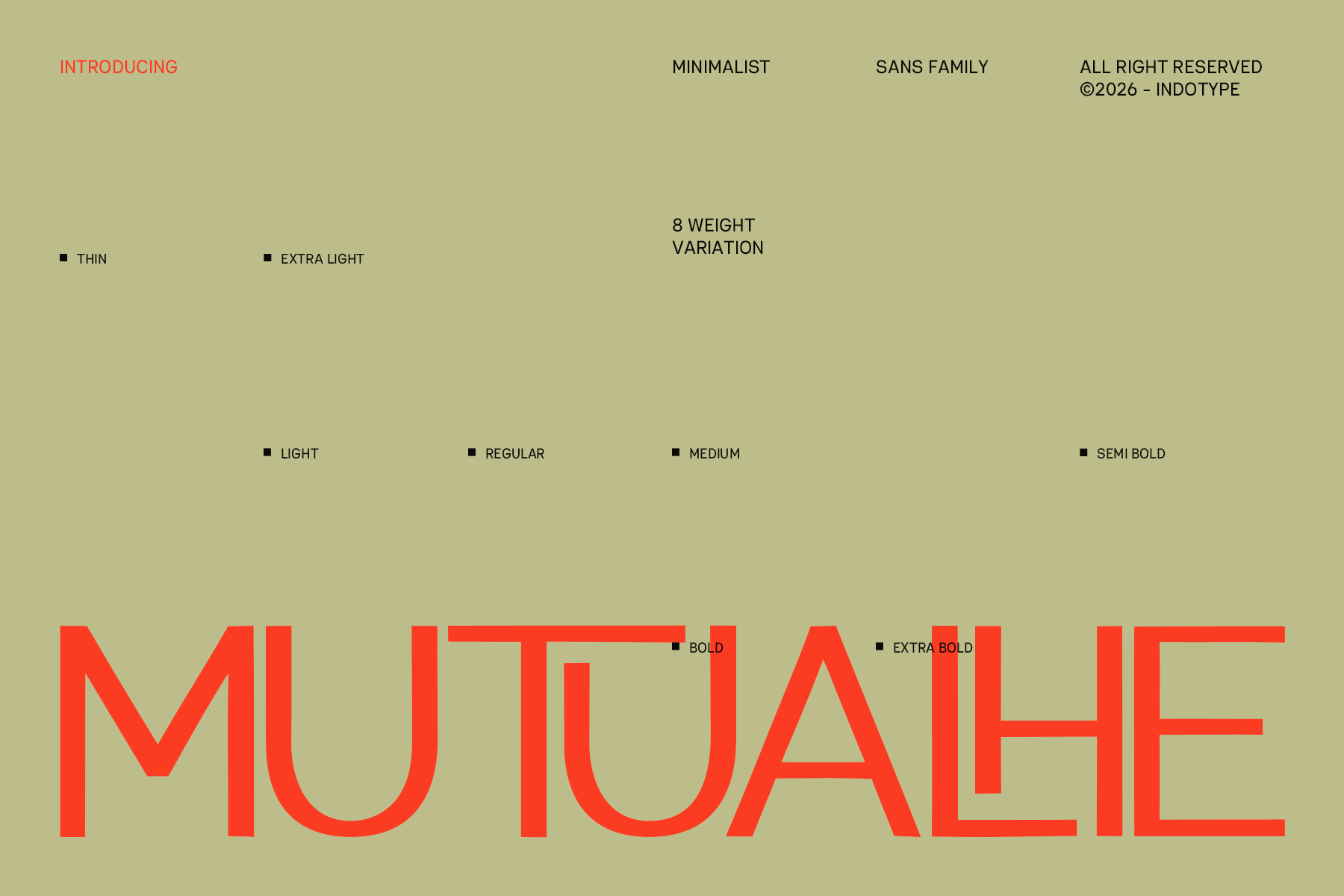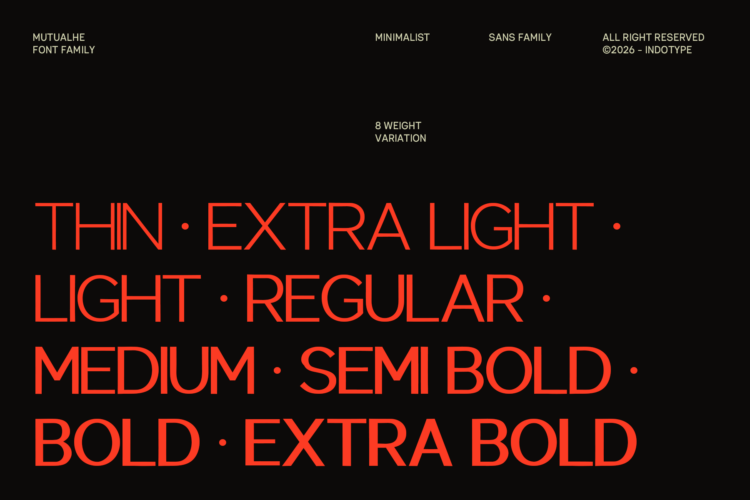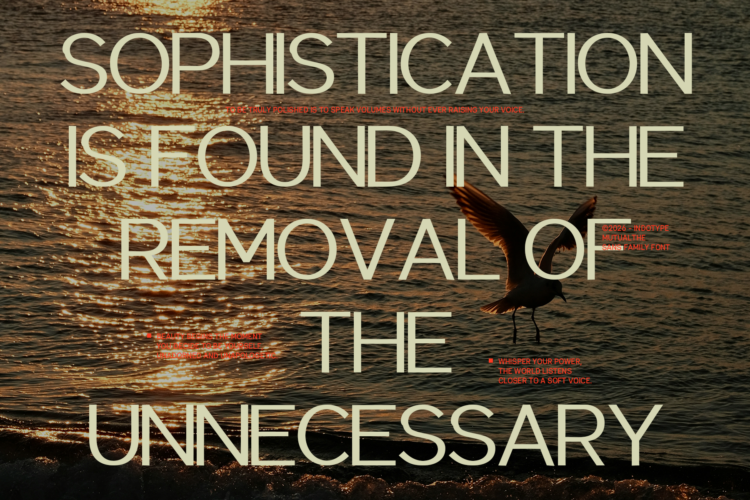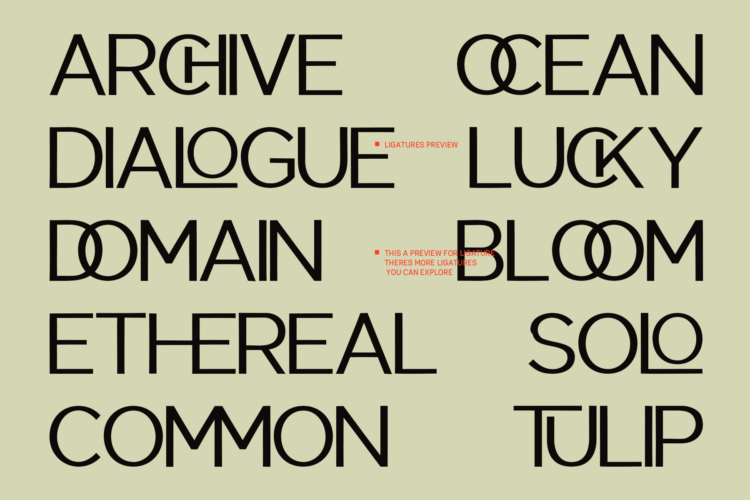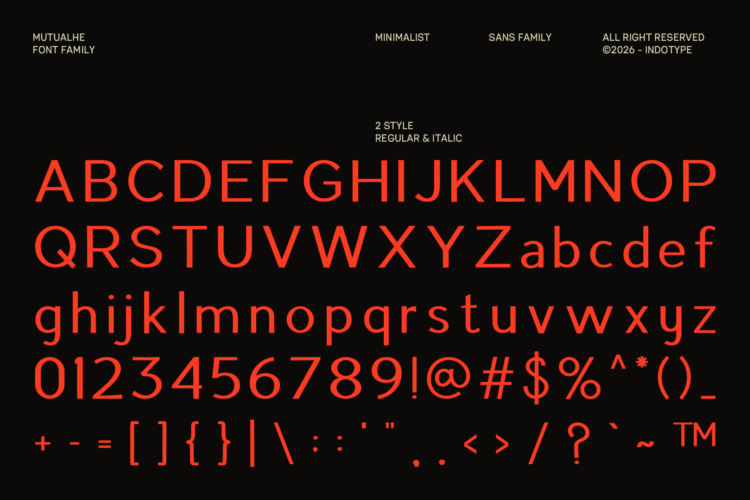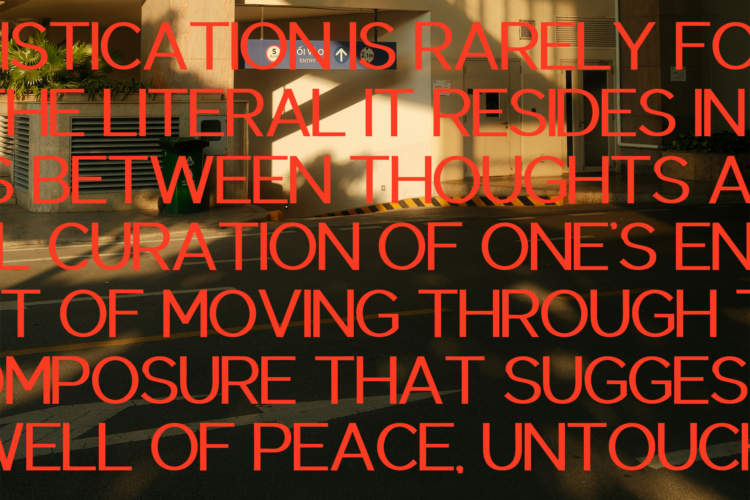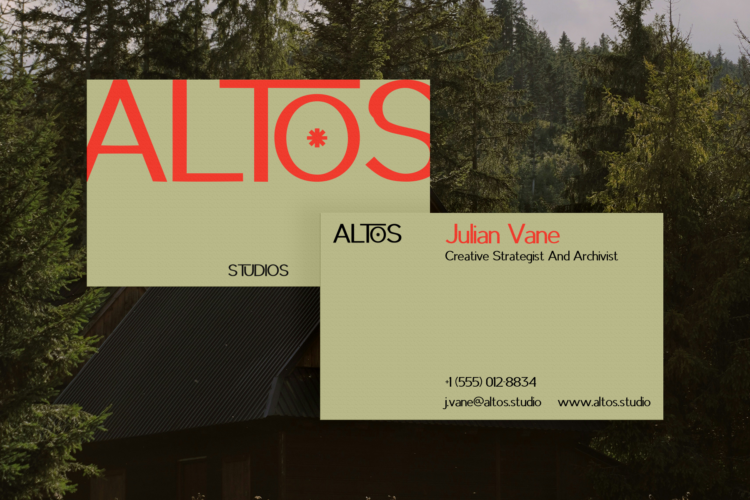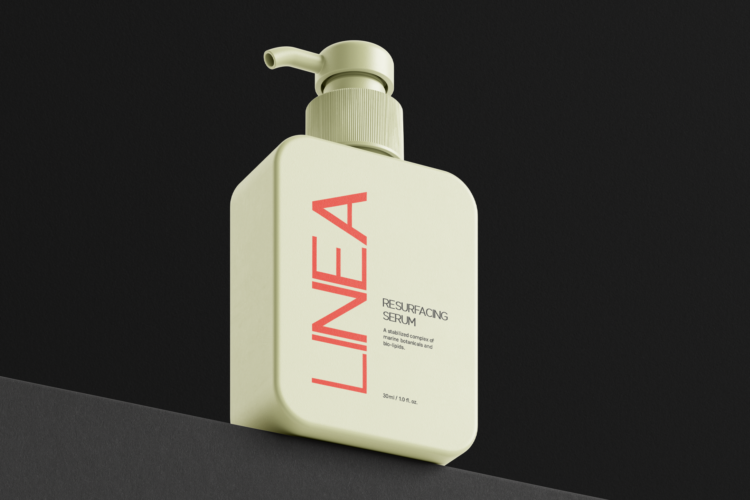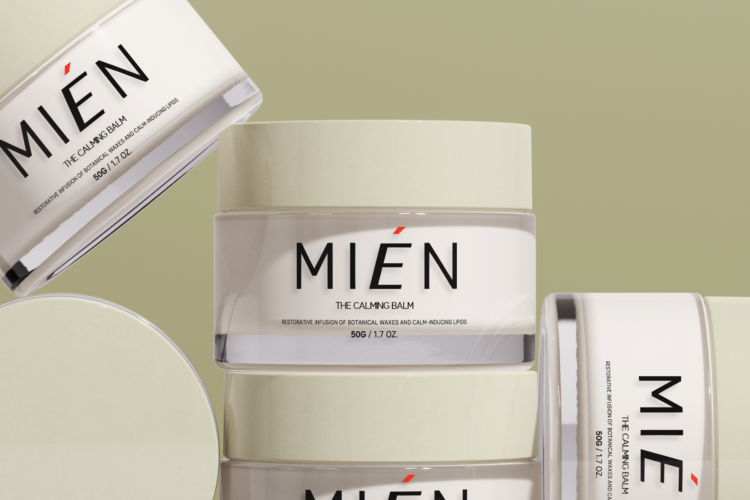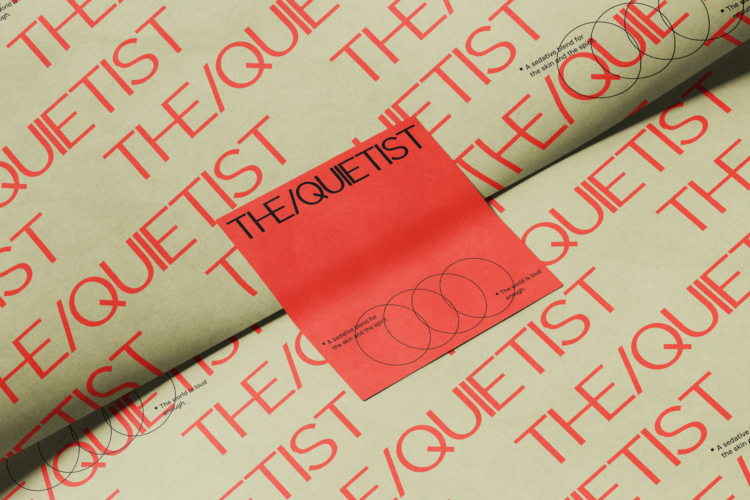
Mutualhe is a minimalist sans-serif font family of exceptional clarity, geometric discipline, and quiet typographic authority. Mutualhe delivers 8 weight variations — from Thin through Extra Bold — spanning the complete spectrum of typographic need within a single, rigorously unified design system. This is a typeface built for designers who understand that restraint is not a limitation but a strategy: that the removal of every unnecessary element, the perfection of every proportion, and the absolute consistency of every geometric decision is what produces the kind of typography that feels inevitable rather than designed. Mutualhe does not announce itself. It simply works, completely and without compromise, every time.
Mutualhe is constructed on the purest principles of geometric sans-serif design: uniform stroke widths within each weight, circular arcs drawn from perfect geometric centers, letterform proportions derived from rational grid relationships, and an absolute absence of decorative variation or humanist irregularity. Every design decision in Mutualhe is motivated by reduction — the pursuit of the simplest form that still communicates the letter clearly and distinctively. The result is a typeface of almost architectural precision, where the letterspacing, the stroke weight, and the proportional relationships between characters have been calibrated with the same care that an engineer brings to load-bearing calculation.
• Standard Character A-Z, a-z, 0-9, Punctuation & symbols
• Thin, Regular, Medium, Semi Bold, Bold Weight Styles and Italic Style on Each Weight
• Multilingual Support accents and diacritics
• Including Alternate Glyphs